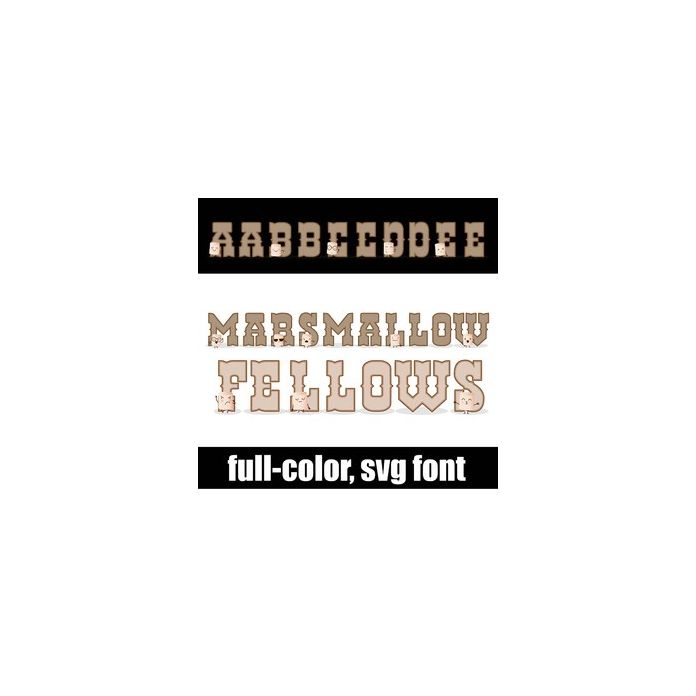
This full-color font features marshmallows ready for the fire. There is an alt case w/ additional colors you can access through your system or Silhouette's glyph map.